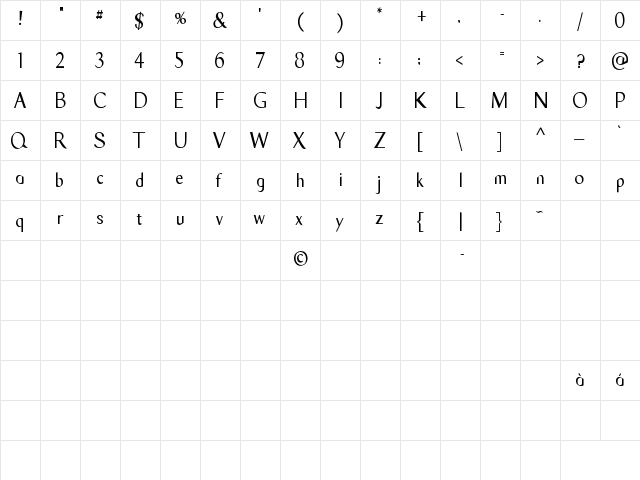
Tyro Sans Regular
| Designer | Kirk Shelton |
Design Context for Tyro Sans Typeface
Tyro Sans offers clean, dependable letterforms without strong stylistic allegiance, making it a practical choice for designers who need flexibility.
Pro Tip: Pair Tyro Sans with a font of contrasting weight or personality to build a more expressive typographic hierarchy.